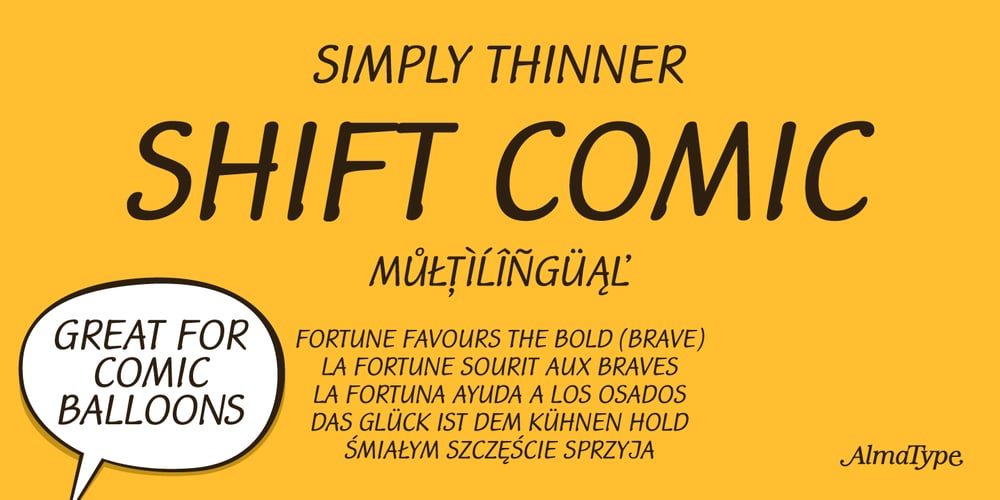
Shift Comic
Shift Comic font
Shift Comic Font Family was designed by Mariusz Zając and published by Alma Type. Shift Comic contains 1 styles and family package options. Shift Comic is the usual alternative to many similar typefaces. It’s based on my handwriting. I decided to make a thinner variety than most available on the market.